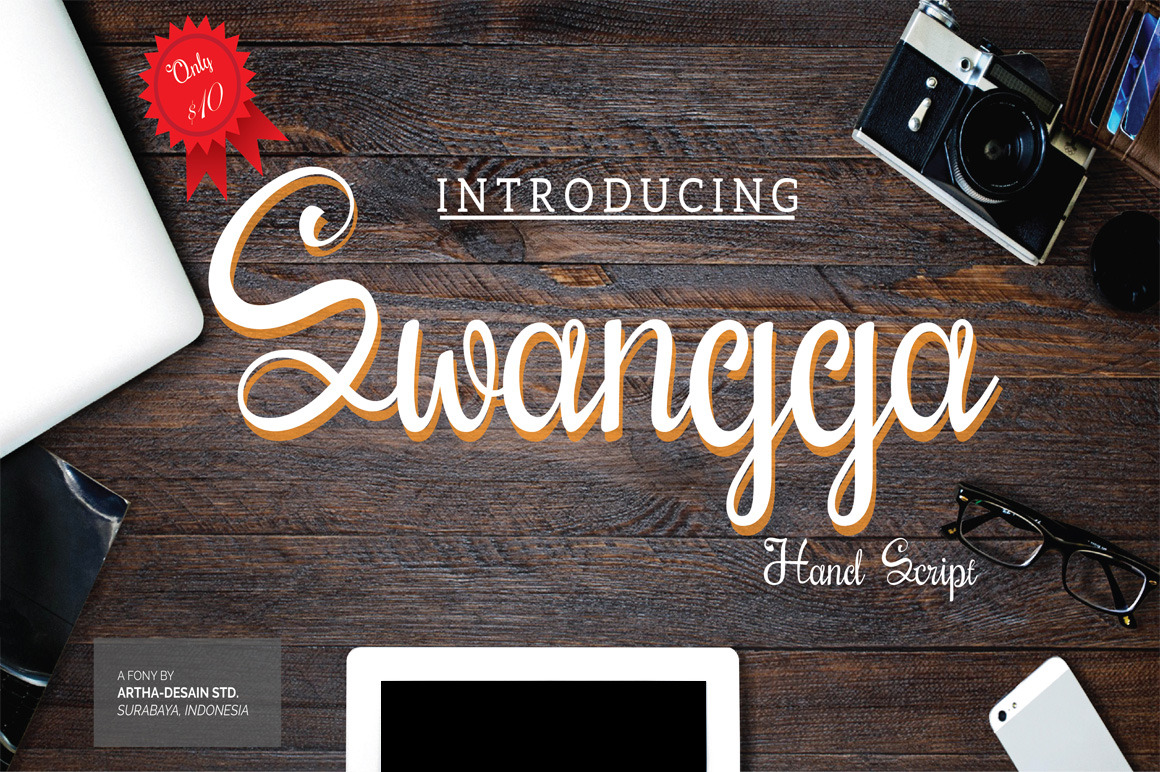
Swangga Hand Script Fonts
Swangga hand script, a friendly new script typeface! Use Swangga to make a elegant logo, package design, shirts, invitations, and so much more.